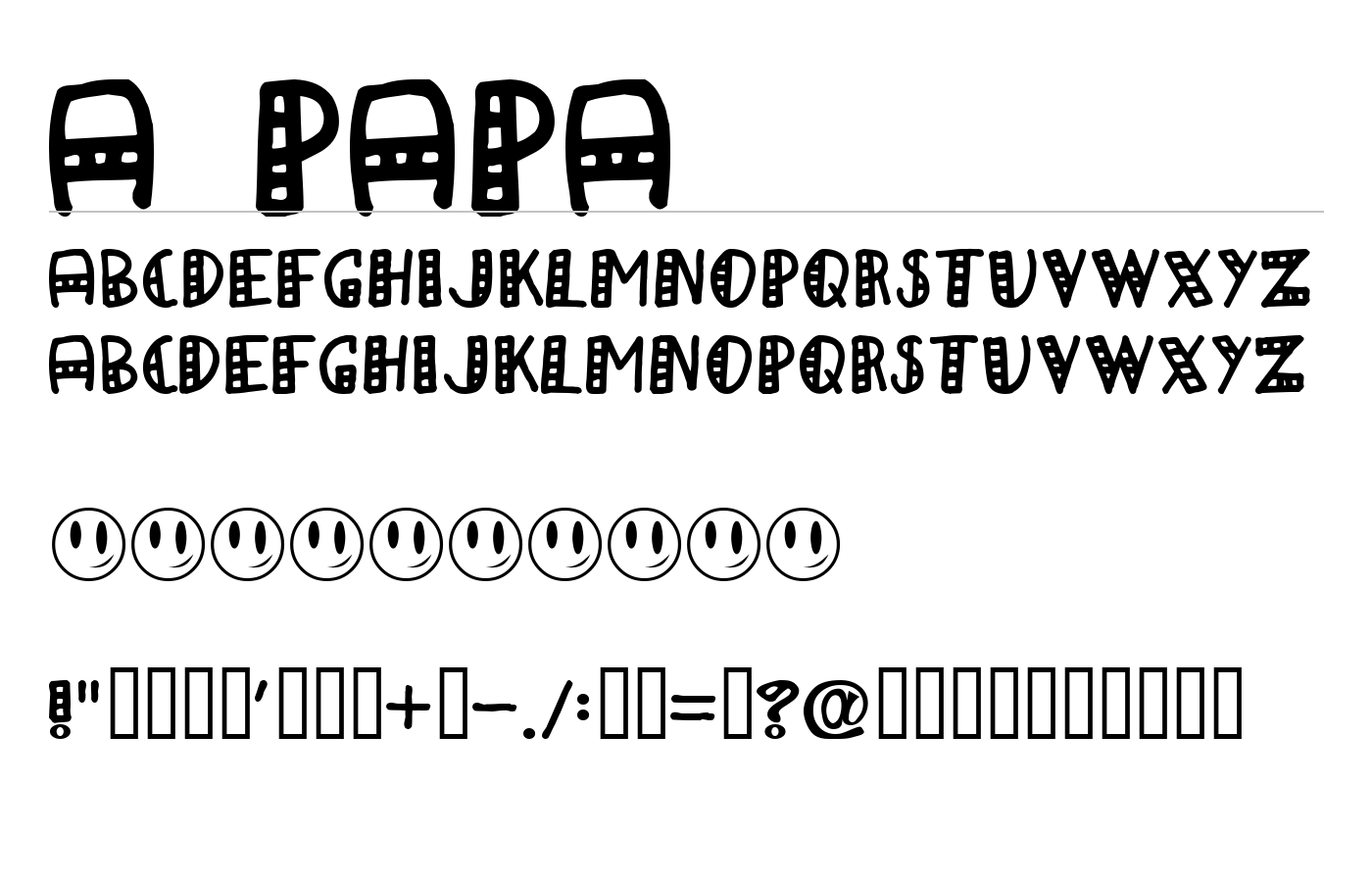
A Papa Font is a playful and quirky sans serif typeface characterized by thick, uneven strokes and whimsical, hand-drawn letterforms that create a casual, fun vibe. Its bold weight and lively shapes make it perfect for creative projects, children's materials, or informal branding that aims to capture a friendly and approachable personality. This font works well in headlines, logos, and posters where a unique, eye-catching style is desired.
a Papa Font